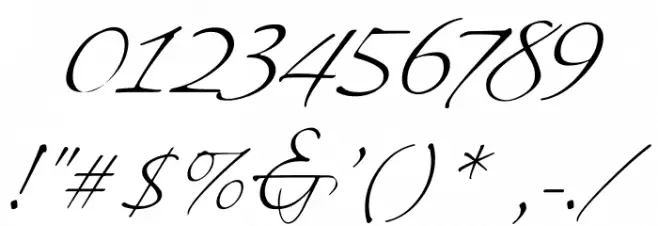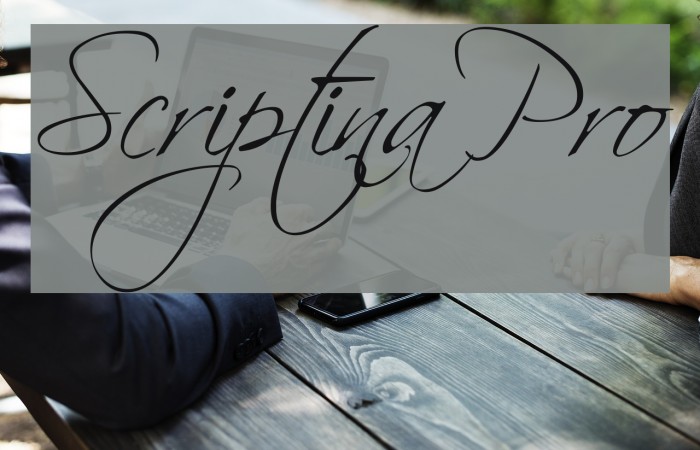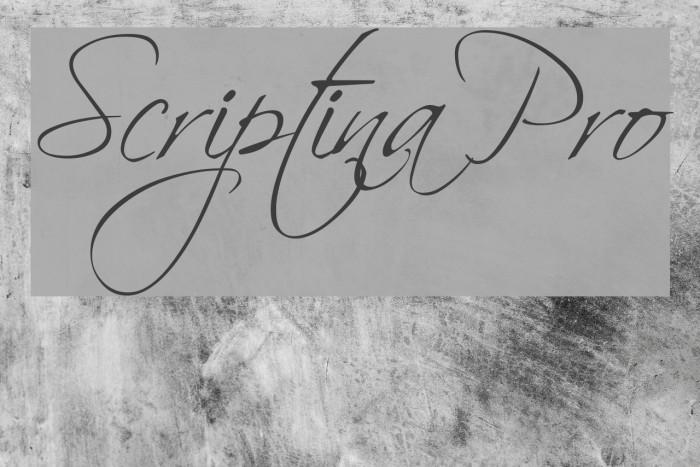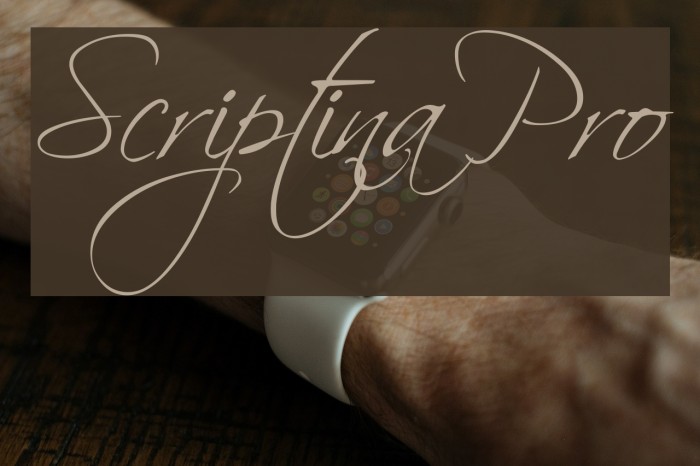
Scriptina Pro Font
Scriptina Pro Description
This font exudes elegance and sophistication with its flowing, cursive script style. The characters are intricately designed, featuring high contrast between thick and thin strokes, which adds a dramatic flair. The uppercase letters are particularly ornate, with sweeping lines and flourishes that give a sense of movement and grace. The lowercase letters maintain a consistent style, complementing the uppercase with their own subtle curves and loops. The numerals and special characters are equally stylized, ensuring a cohesive look across all text. This font is perfect for projects that require a touch of elegance and formality.
An elegant, cursive script font with high contrast and ornate flourishes from Uncategorized fonts.
- Proposed Projects: Ideal for wedding invitations, luxury branding, elegant packaging, and formal event programs.
- Overall Style: Elegant, Formal, Sophisticated
- Use Case: Logos, Invitations, Decorative Text